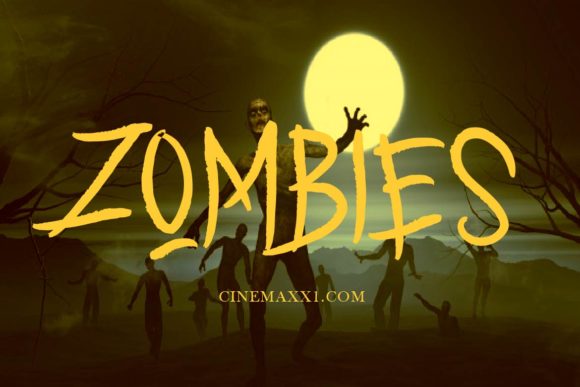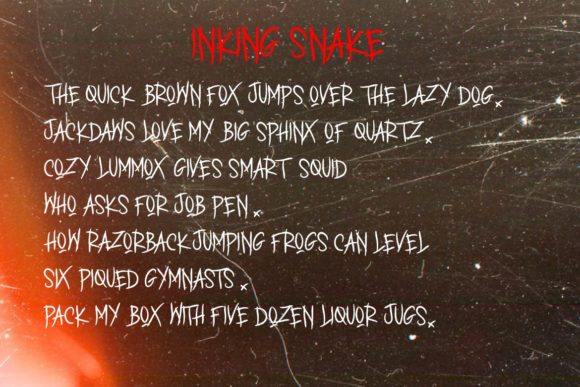
Introduction to Inking Snake Font
Have you ever stared at a blank canvas, trying to conjure up the perfect font to bring your creative project to life? The hunt for the perfect design resource can be daunting, especially when you’re working on a high-quality project that requires a unique touch. But what if you stumbled upon a font that’s as quirky as it is captivating? Enter the Inking Snake Font, a display font that’s sure to add a touch of whimsy to any design.
With its transparent background and playful, cursive script, the Inking Snake Font is the perfect addition to any design portfolio. And the best part? It’s available for free download, making it an invaluable resource for designers on a budget. Whether you’re working on a personal project or a high-stakes commercial design, this font is sure to elevate your work to the next level.
Inking Snake Font
- Unique, hand-drawn design ideal for creative projects requiring a personal touch.
- Great for designers looking for a distinctive and creative font to elevate their design projects.
Honest Review: Inking Snake Font
As a designer, I’m always on the lookout for high-quality design resources to elevate my creative projects. The Inking Snake Font is one such resource that caught my attention. In this review, I’ll share my honest thoughts on this font, its strengths, and its limitations.
- ✨ High-quality design: The Inking Snake Font has a unique, hand-drawn feel that’s perfect for creative projects.
- ✨ Versatile: This font is suitable for various design projects, from branding to editorial content.
- ⚠️ Limited character set: The font may not have a comprehensive character set, which could be a limitation for certain design projects.
- ⚠️ No transparent background: The font’s design doesn’t lend itself well to transparent backgrounds, which may limit its use in certain design contexts.
Overall, the Inking Snake Font is a great addition to any designer’s toolkit. Its unique design and versatility make it an excellent choice for creative projects. However, its limitations should be considered when deciding whether to use it for a particular design project.
Tips for Getting the Most Out of Inking Snake Font
Use Inking Snake Font in creative ways, such as combining it with other design elements or using it as a background texture. Experiment with different font sizes and colors to create a unique look.
Inking Snake Font is perfect for use in logos, branding materials, and marketing materials. It’s also great for use in social media graphics, presentations, and other creative projects.
Alternatives to Inking Snake Font
Cyber Script
Cyber Script is a modern, high-quality font that’s perfect for creative projects requiring a touch of futurism. Its sleek lines and metallic feel make it an excellent choice for designs with transparent backgrounds or a neon aesthetic.
When to use: Cyber Script is ideal for futuristic, tech-inspired designs, as well as projects that require a bold, eye-catching font. It’s a great alternative to Inking Snake Font when you need a more modern and edgy look.
Comparison: While Inking Snake Font has a more organic feel, Cyber Script is more geometric and futuristic. Cyber Script is better suited for designs with a high level of complexity and detail, whereas Inking Snake Font excels at creating a sense of movement and fluidity.